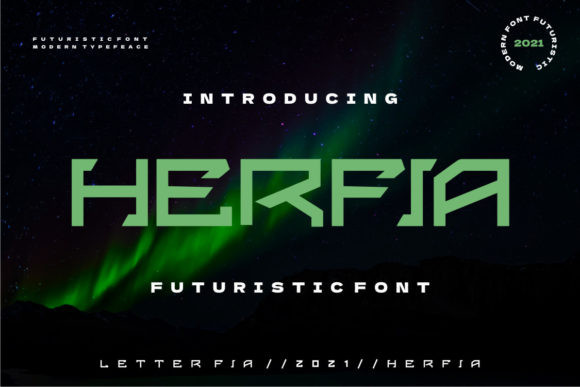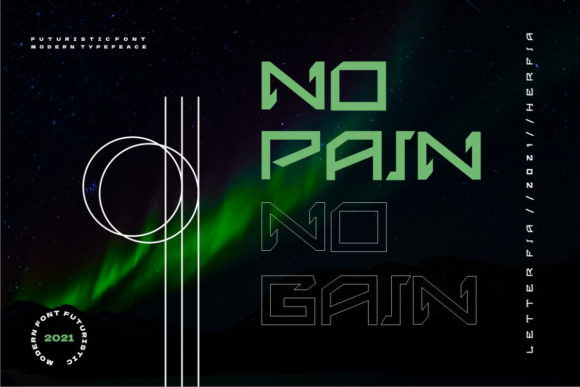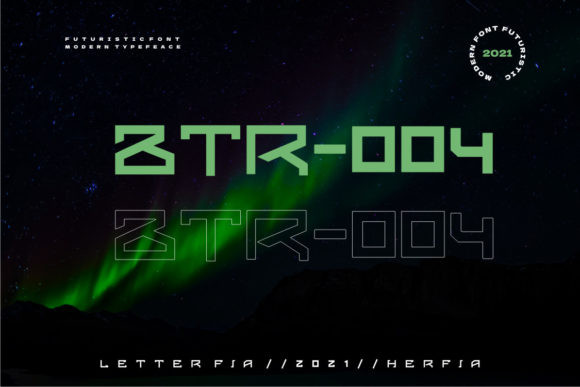
Herfia Font
Herfia is a trendy and futuristic display font. This font is ideal for writing web designs, business cards, or pretty much anything else that requires a unique touch.